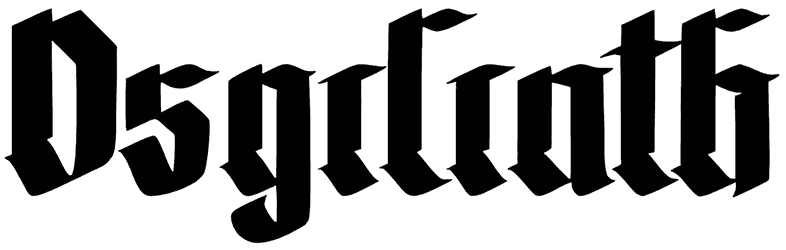
Osgiliath Font
Osgiliath is a gothic font that is designed in modern style and would be really fit for all of your creative designs including logos, posters, packaging, greeting cards, and web pages. Reading its characters might be a little bit challenging due to the sophisticated typeface, but at the same time, it can bring a sense of classic, vintage, and approachability to your content.